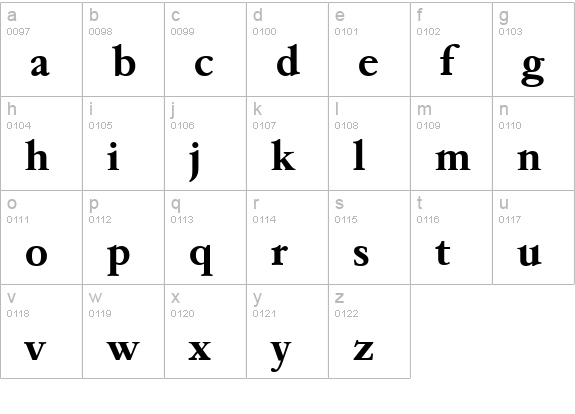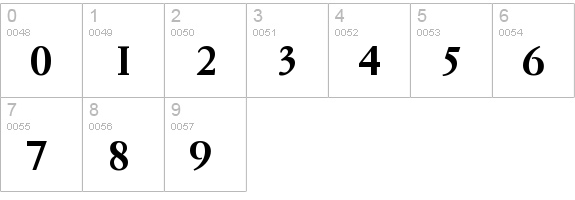
GarfeldSerial Bold is a strong, high-contrast variant in the GarfeldSerial typeface family \xE2\x80\x94 well suited to headlines, attention-grabbing titles, and strong calls-to-action.
GarfeldSerial Bold is a sleek and modern typeface that exudes confidence and style. Its bold and eye-catching design makes it perfect for headlines, posters, and branding projects that require a strong visual impact. The clean lines and sharp edges of GarfeldSerial Bold give it a professional and sophisticated look that will elevate any design it is used in. What's even better is that GarfeldSerial Bold is available for free download at FontsMarket.com. You can easily access this stunning font and incorporate it into your projects without any cost. Don't miss out on the opportunity to add GarfeldSerial Bold to your font collection and take your designs to the next level.